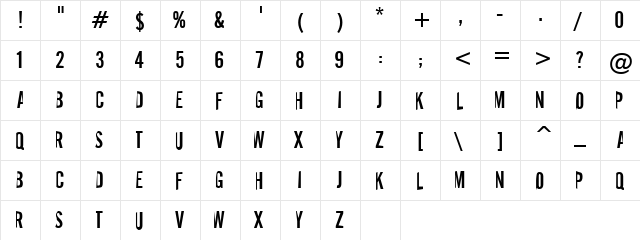
Dentist Regular Font Preview
Dentist Regular
Design Context for Dentist Typeface
Dentist takes a measured approach to typography — its balanced proportions and neutral character make it a reliable workhorse for both digital and print work.